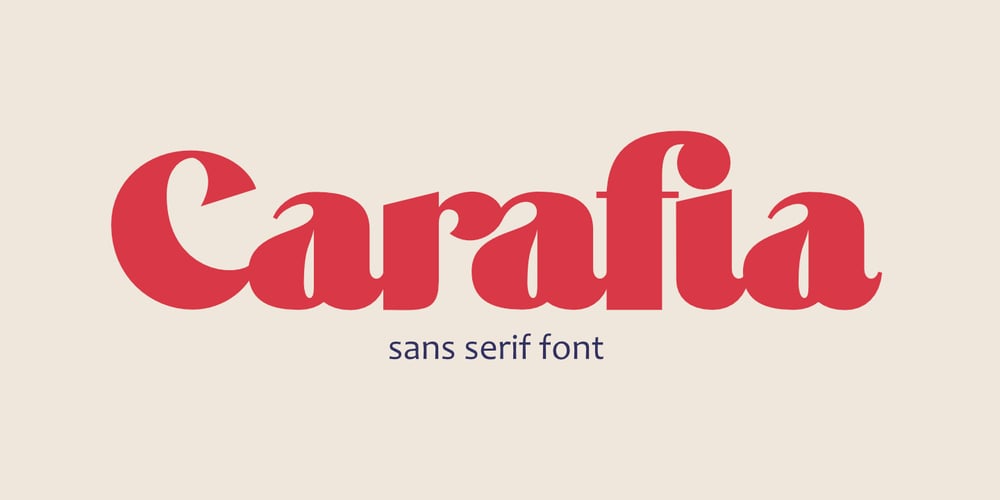
Carafia Font Family was designed by Muhammad Romzul Khoir and published by Khoir. Carafia contains 1 styles and family package options. Carafia is a bold sans serif font. It has its own uniqueness in its small, bound letters, Supported by several alternative and ligature fonts that make it cute, unique, suitable for all types of projects such as branding, logo design, cover design, web design, packaging, social media, and many more what are you waiting for!What’s included? Uppercase Characters Lowercase Characters Support 75+ Language So what are you waiting for? immediately purchase this font, feel free to comment, or send me my PM or email at khoirtypework@gmail.com Thank you for seeing